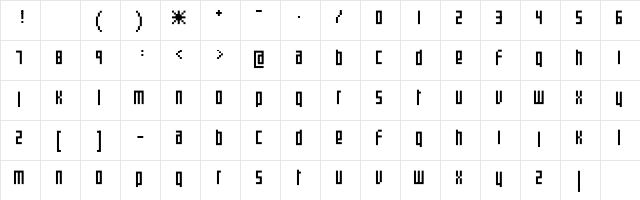
clickscape Regular
Design Context for clickscape Typeface
clickscape offers clean, dependable letterforms without strong stylistic allegiance, making it a practical choice for designers who need flexibility.
Pro Tip: Pair clickscape with a font of contrasting weight or personality to build a more expressive typographic hierarchy.